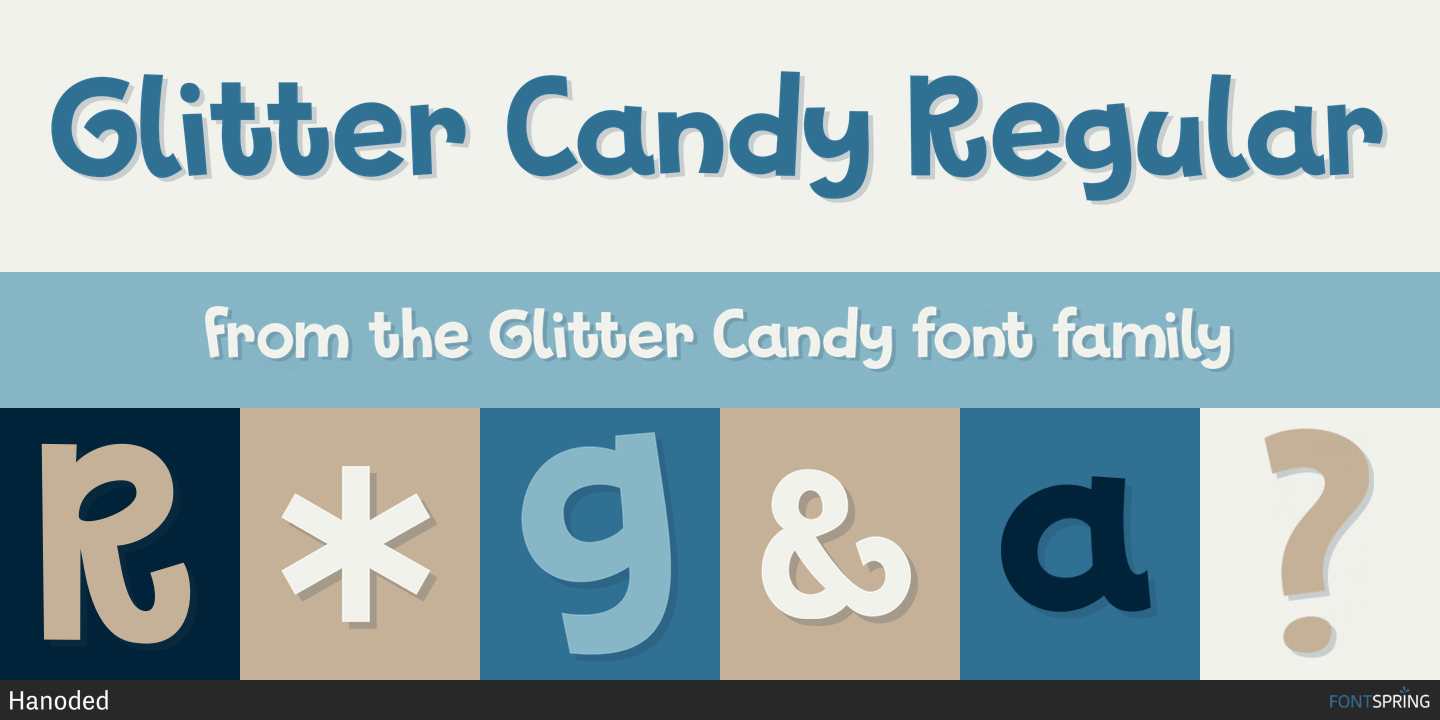
Glitter Candy Regular Font . The font style may vary depending. It is free for personal use only. This is the most basic form of glitter candy, the webzine in its infancy, if you will. Note that for personal use only it does not cost any amount of. It is free for personal use only. This is the demo, bare bones, version of glitter candy. Glitter candy regular font free download. Glitter candy is a happy font: Ideal for children’s book covers, posters and product packaging. If you are going to use it commercially, buy the full version, which comes with kerning, embedding rights, all. Glitter candy is a happy font: If you are going to use it commercially, buy the full. The font was designed by david kerkhoff and free for personal use. It is free for personal use only. Ideal for children’s book covers, posters and product packaging.
This is the most basic form of glitter candy, the webzine in its infancy, if you will. About the glitter candy font. Glitter candy is a happy font: The font subfamily is regular. Glitter candy is the perfect font for all your fun designs. This is the demo, bare bones, version of glitter candy. Glitter candy regular font free download. This is the demo, bare bones, version of glitter candy. If you are going to use it commercially, buy the full version, which comes with kerning, embedding rights, all. The font style may vary depending.
Glitter Candy Regular Font Ideal for children’s book covers, posters and product packaging. This is the demo, bare bones, version of glitter candy. About the glitter candy font. Ideal for children’s book covers, posters and product packaging. Glitter candy is the perfect font for all your fun designs. The font style may vary depending. It is free for personal use only. The font was designed by david kerkhoff and free for personal use. If you are going to use it commercially, buy the full version, which comes with kerning, embedding rights, all. Glitter candy is a happy font: Note that for personal use only it does not cost any amount of. It is free for personal use only. This is the most basic form of glitter candy, the webzine in its infancy, if you will. Glitter candy regular font free download. Ideal for children’s book covers, posters and product packaging. If you are going to use it commercially, buy the full.
Glitter Candy font by Hanoded FontRiver Glitter Candy Regular Font About the glitter candy font. The font style may vary depending. Glitter candy regular font free download. The font subfamily is regular. It is free for personal use only. If you are going to use it commercially, buy the full. This is the demo, bare bones, version of glitter candy. Ideal for children’s book covers, posters and product packaging. It. Glitter Candy Regular Font.
Glitter Candy Font FontMagic Glitter Candy Regular Font This is the demo, bare bones, version of glitter candy. This is the most basic form of glitter candy, the webzine in its infancy, if you will. Glitter candy is the perfect font for all your fun designs. This is the demo, bare bones, version of glitter candy. If you are going to use it commercially, buy the full version,. Glitter Candy Regular Font.
Jelly Candy Font by AquariiD · Creative Fabrica Glitter Candy Regular Font A great choice for highlighting your design elements. About the glitter candy font. If you are going to use it commercially, buy the full. The font was designed by david kerkhoff and free for personal use. Glitter candy regular font free download. The font subfamily is regular. If you are going to use it commercially, buy the full version, which. Glitter Candy Regular Font.
Sweet candy alphabet 3d fonts white red colors. Bold Italic typeface Glitter Candy Regular Font About the glitter candy font. The font style may vary depending. Ideal for children’s book covers, posters and product packaging. This is the demo, bare bones, version of glitter candy. Glitter candy regular font free download. Glitter candy is a happy font: It is free for personal use only. This is the demo, bare. Glitter Candy Regular Font.